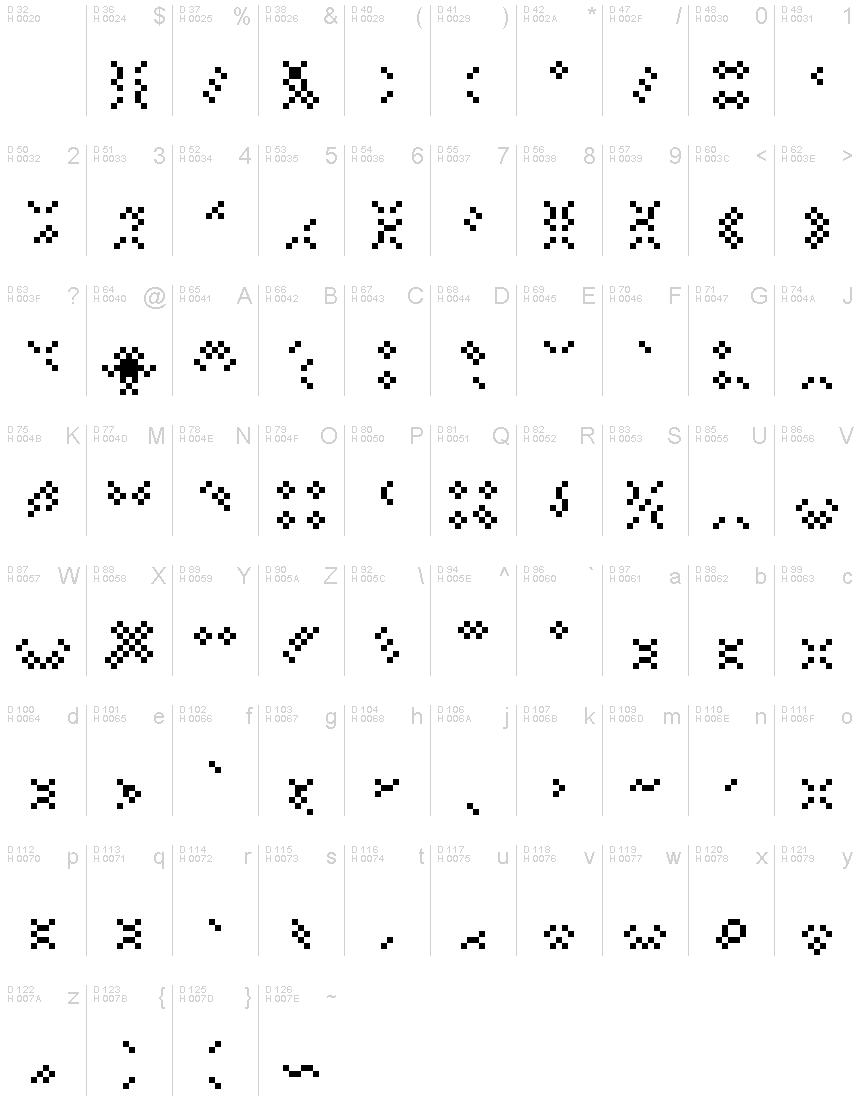
PropelRepelAlias
Propel Repel is a captivating bitmap font that exudes a retro-futuristic charm. Its pixelated, geometric letterforms possess a striking visual presence, evoking the nostalgic allure of early digital aesthetics.
The font's sharp, angular shapes and distinct character spacing create a dynamic, high-contrast appearance that instantly catches the eye. Propel Repel's versatility shines through, making it a compelling choice for a wide range of design applications, from vintage-inspired branding and editorial layouts to eye-catching digital interfaces and game interfaces.
Its bold, unapologetic style effortlessly commands attention, making it an ideal tool for designers seeking to inject a bold, memorable flair into their creative projects.
A font specifically made for use in Adventure Game Studios. This font is best viewed at a 10-pixel size. Alias and outline fonts should be layered over the base font to achieve the desired appearance.
The font's sharp, angular shapes and distinct character spacing create a dynamic, high-contrast appearance that instantly catches the eye. Propel Repel's versatility shines through, making it a compelling choice for a wide range of design applications, from vintage-inspired branding and editorial layouts to eye-catching digital interfaces and game interfaces.
Its bold, unapologetic style effortlessly commands attention, making it an ideal tool for designers seeking to inject a bold, memorable flair into their creative projects.
A font specifically made for use in Adventure Game Studios. This font is best viewed at a 10-pixel size. Alias and outline fonts should be layered over the base font to achieve the desired appearance.